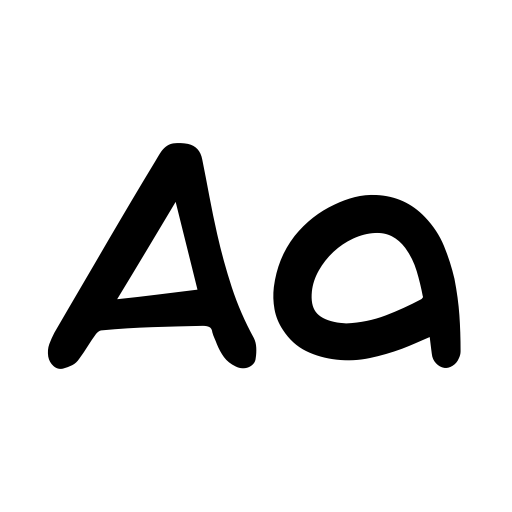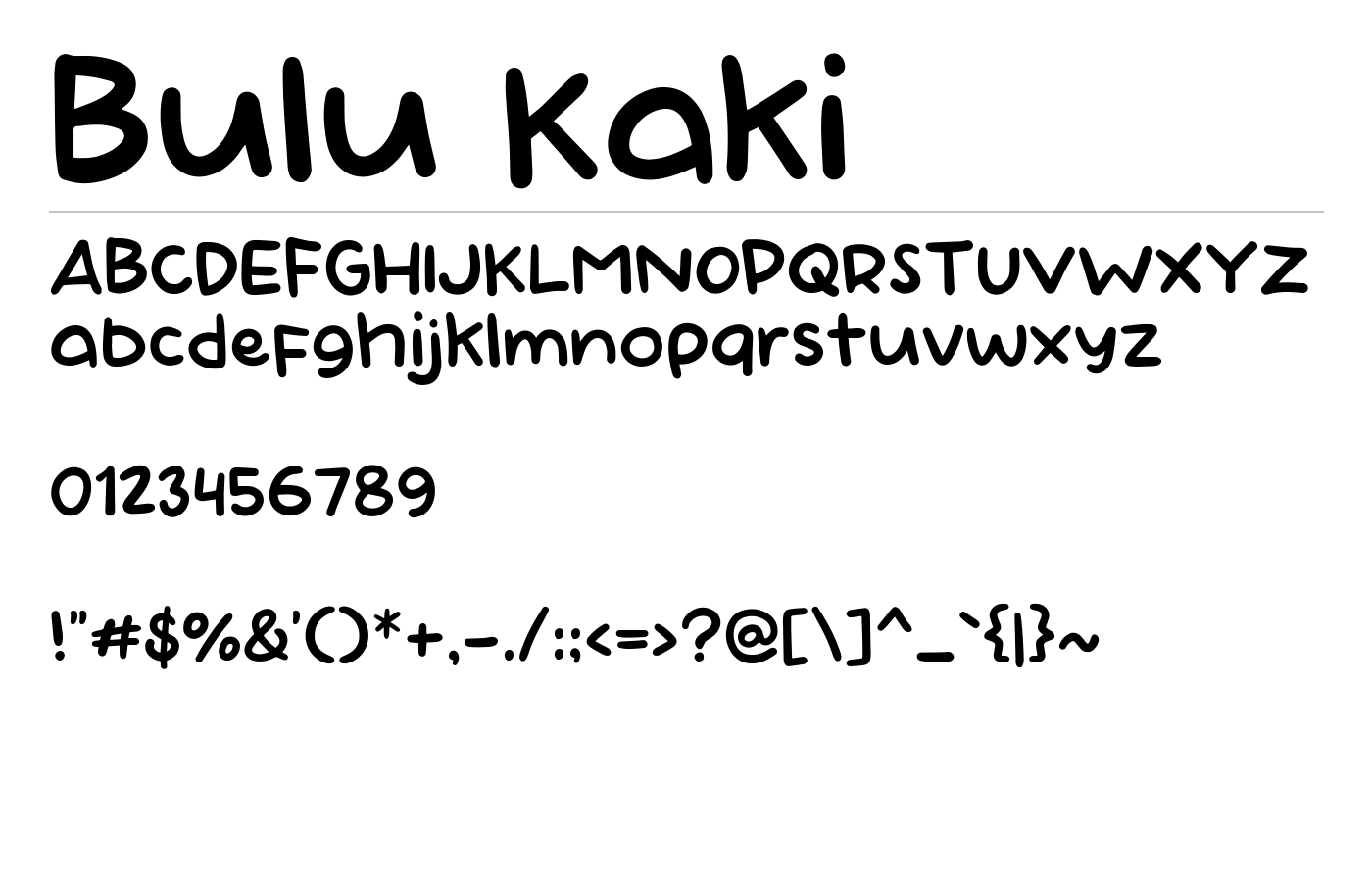
Bulu Kaki is a playful, casual sans serif font with a handwritten feel, featuring rounded, friendly letterforms and moderate weight. Its easygoing style and clear readability make it ideal for informal designs, children’s materials, or lighthearted branding where a warm and approachable tone is desired. This font works well for logos, posters, and websites that aim to convey fun and creativity.
Bulu Kaki Font
About Bulu Kaki Font